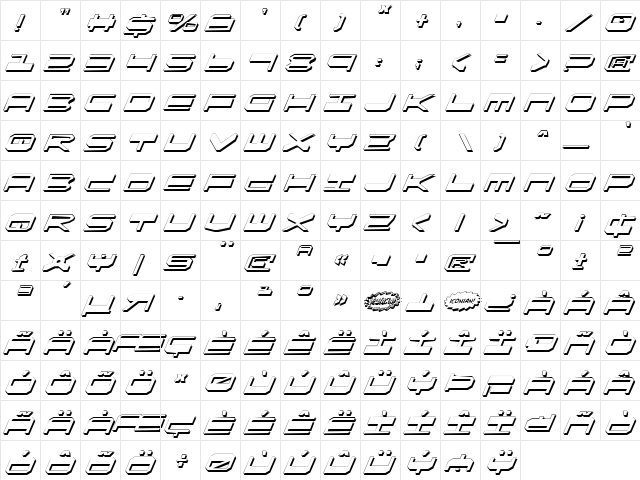
QuickGear Shadow Italic Shadow Italic
| Designer | Dan Zadorozny |
Design Context for QuickGear Shadow Italic Typeface
QuickGear Shadow Italic is built around its visual character rather than neutral utility — its distinctive forms are designed to make an impression at display sizes. Its italic angle brings a sense of urgency and motion to the letterforms.